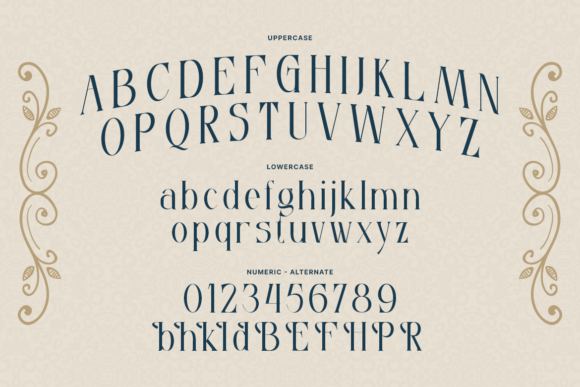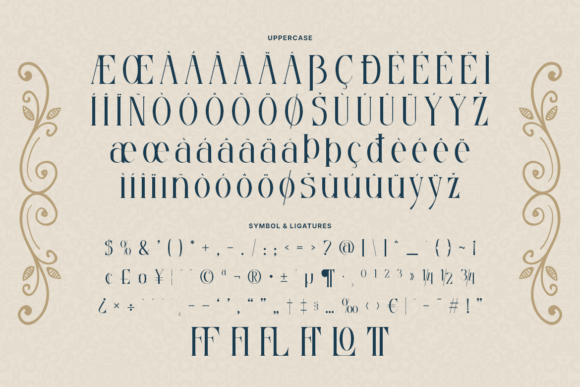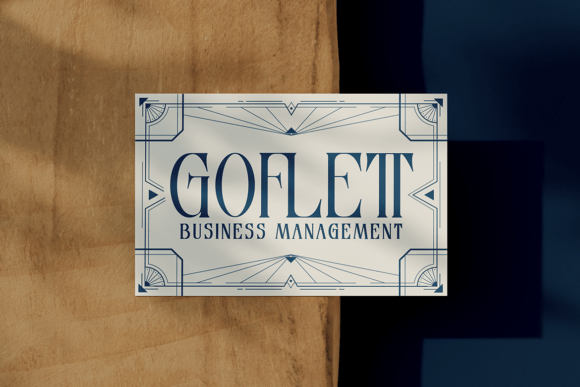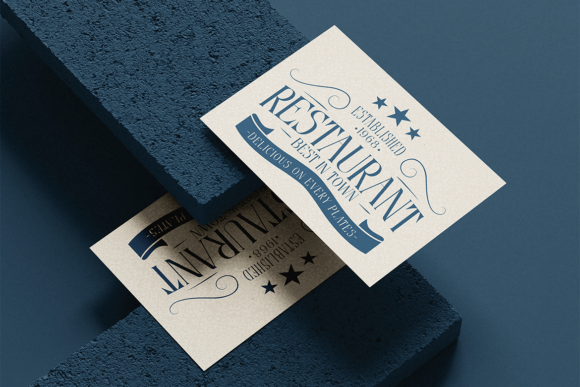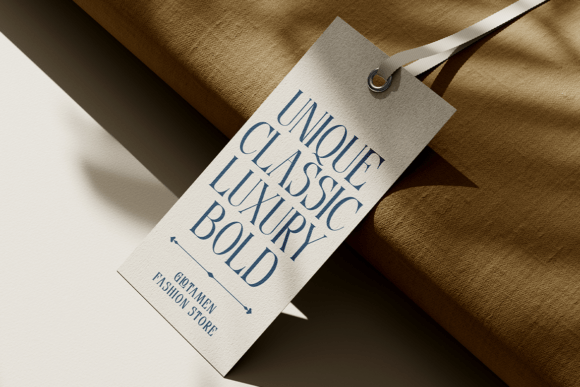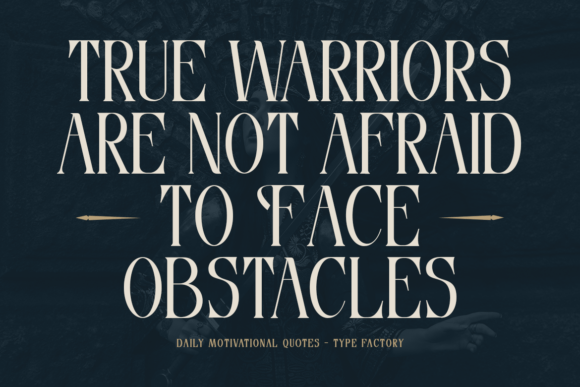
Introduction to Pisarlo Font Font
Fonts play a crucial role in design, and the Pisarlo Font font is a typeface that brings both character and versatility to any project. Whether you’re working on a branding project, a website, or a print design, the Pisarlo Font font offers a unique style that can elevate your work.
Pisarlo is an old deco serif typeface inspired by classic decorative lettering and early 20th-century design aesthetics.
The letterforms feature strong vertical strokes, elegant proportions, and distinctive details that create a timeless visual character This typeface is suitable for branding, editorial layouts, posters, packaging, logos, signage, and display typography that require a vintage and decorative serif appearance.
Why Choose Pisarlo Font Font?
The Pisarlo Font font is more than just a typeface – it’s a design tool that helps you communicate your message with style and clarity. Its unique character set and versatile design make it suitable for a wide range of applications, from elegant invitations to bold headlines.
With its carefully crafted letterforms and balanced proportions, the Pisarlo Font font ensures readability and visual appeal across all mediums.
What makes Pisarlo Font font special?
The Pisarlo Font font stands out with its unique design, exceptional readability, and versatility across various design applications.